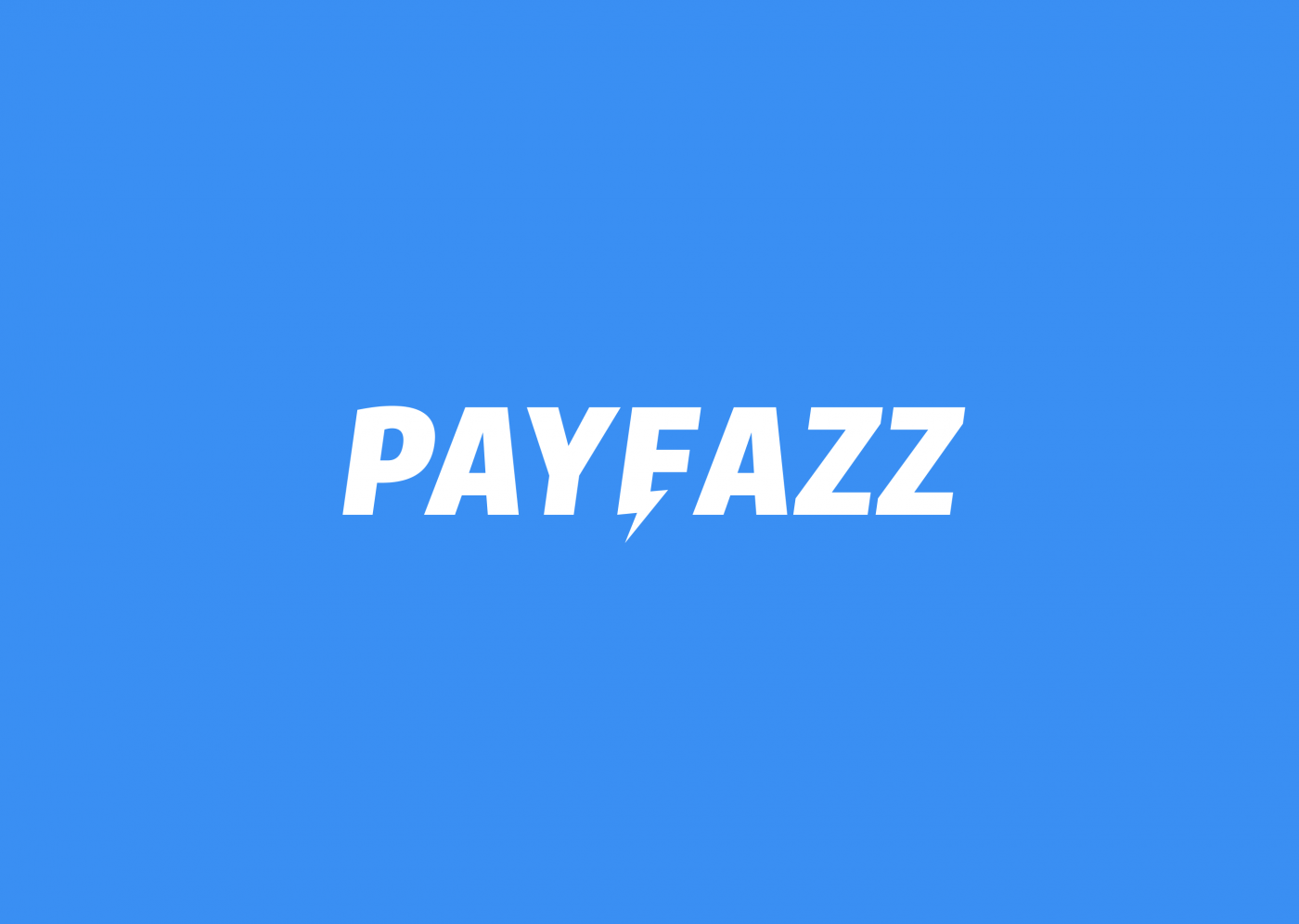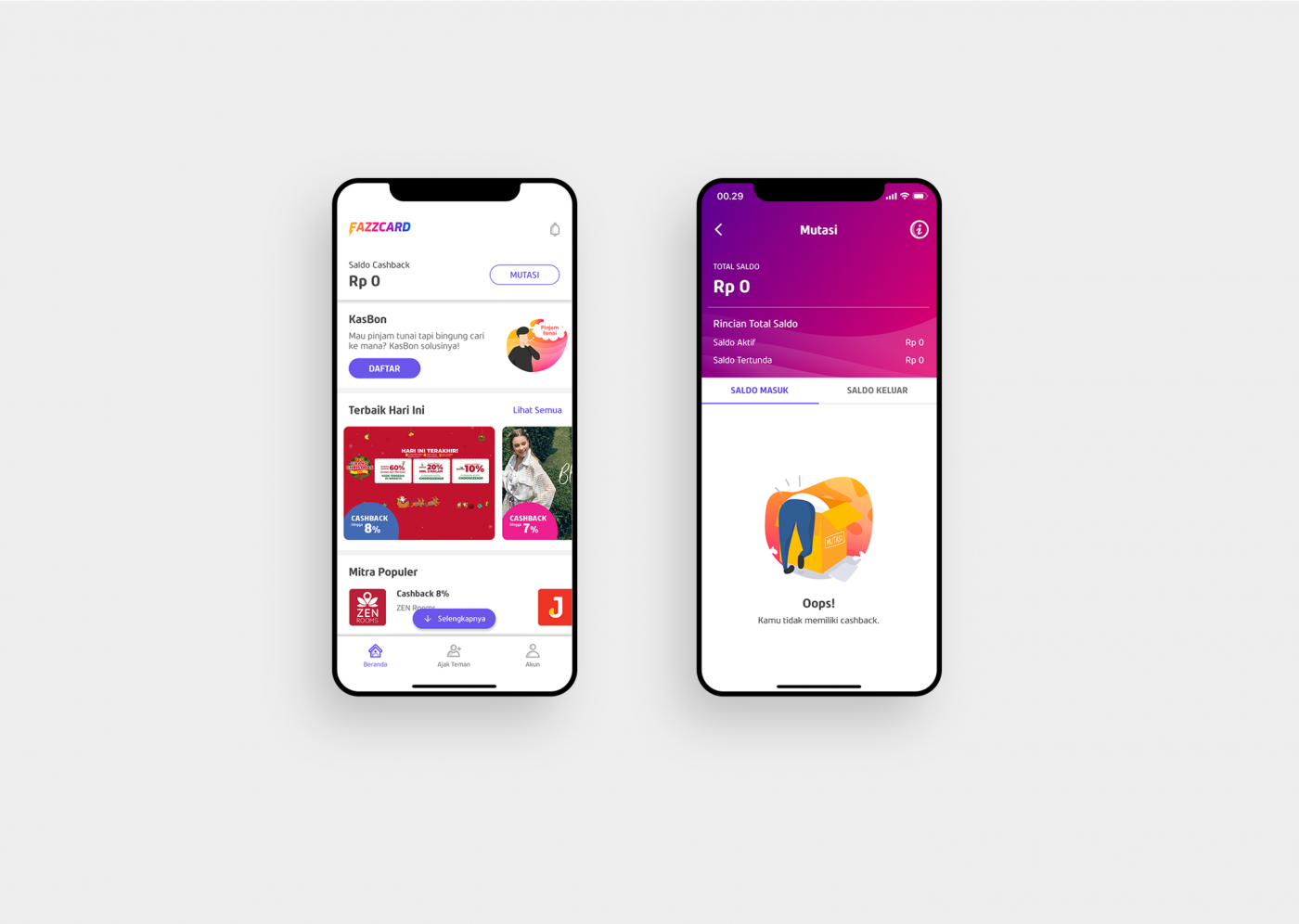
Payfazz Neue, a custom typeface designed to support digital needs such as applications, websites, e-pubs, to digital ads for Payfazz brand communication. Because legibility in digital space is a major challenge, customizing characters with modern voices were adjusted to make the font framework. We focus on creating unique fonts that can be owned and will be readable by certain browsers or screens. The typeface, scale, weight, height x, and distance are all analyzed and adjusted in different digital applications, to provide clearer character readability.
Family Name: Fazz New
Design: Tokotype Studio
Classification: Sans Serif
Styles: 8